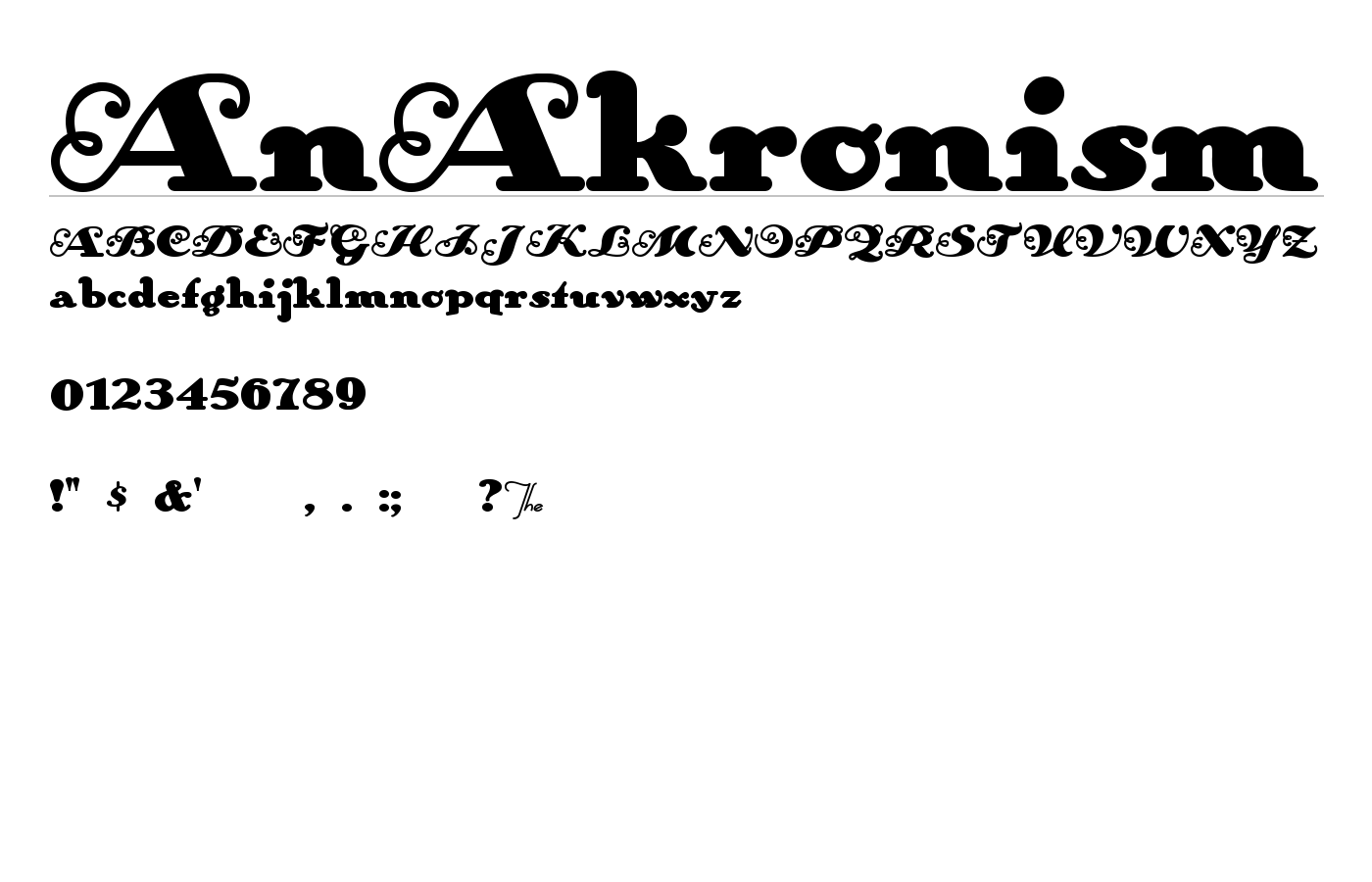
AnAkronism is a striking slab serif font characterized by bold, heavy weight and pronounced rounded serifs, giving it a strong, vintage Western feel. The font features playful, swirled uppercase letters with elaborate curls that contrast with the solid, sturdy lowercase forms, making it both decorative and impactful. Ideal for eye-catching headlines, logos, or packaging, AnAkronism works well where a bold, retro personality with a touch of whimsy is desired.
AnAkronism Font
About AnAkronism Font